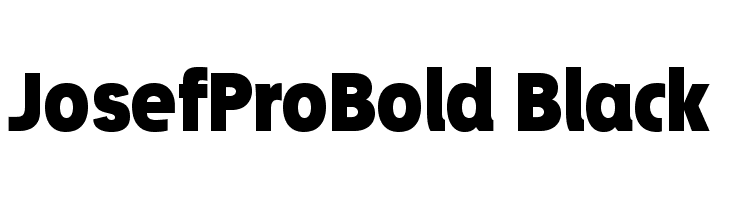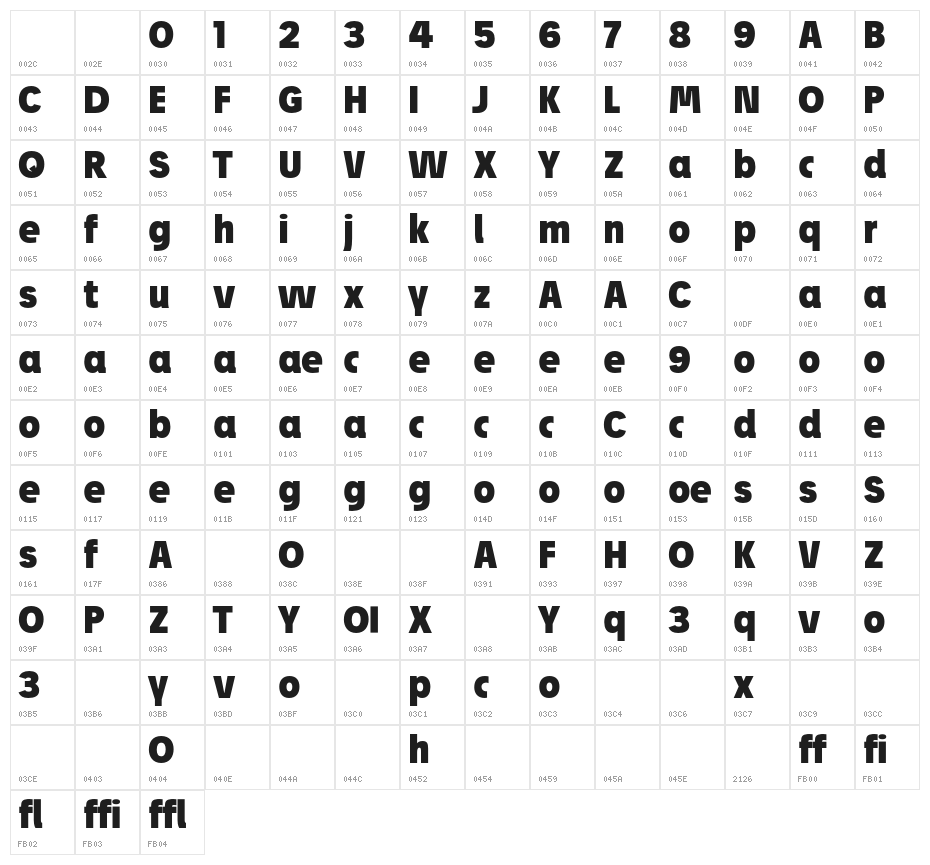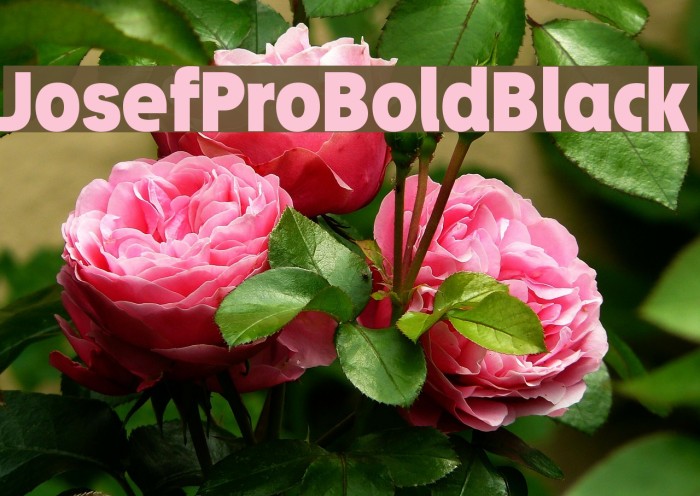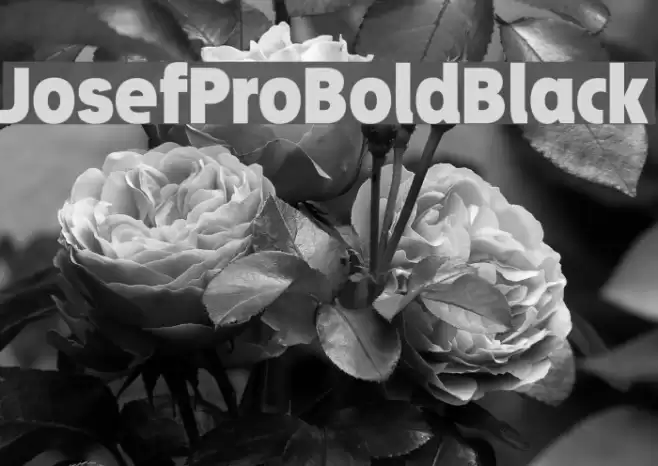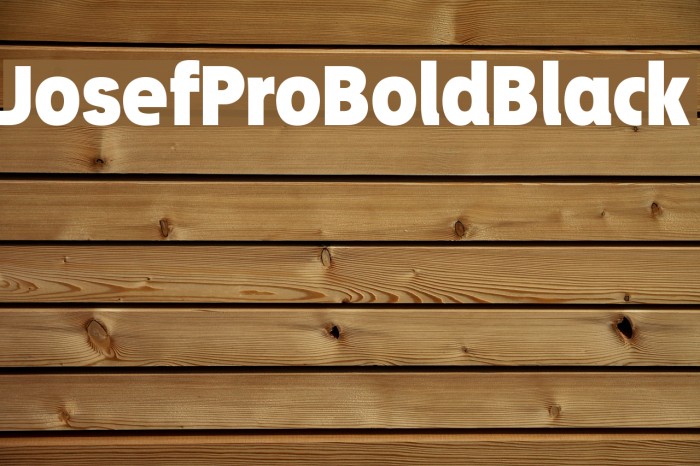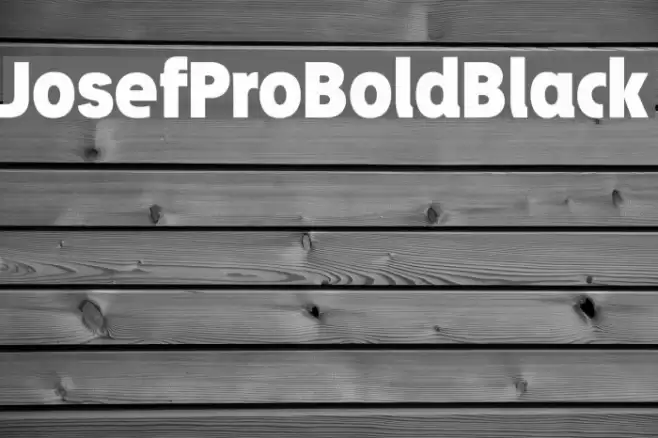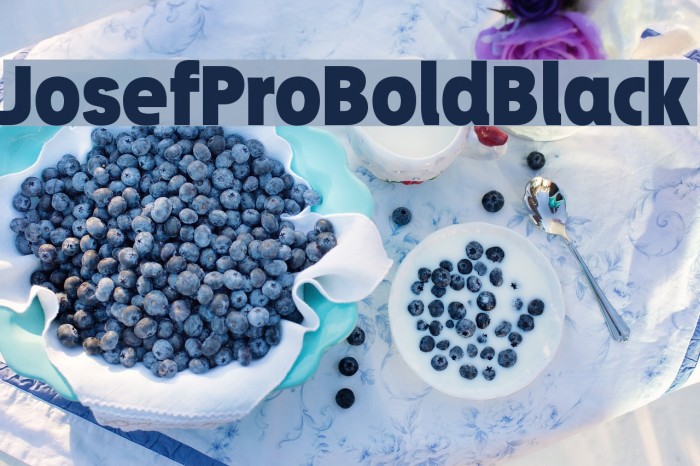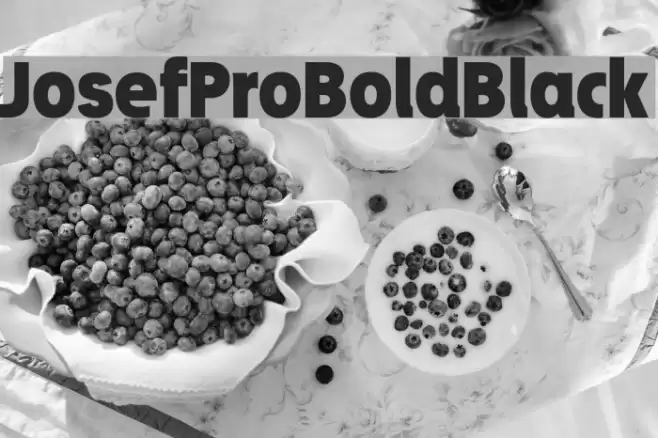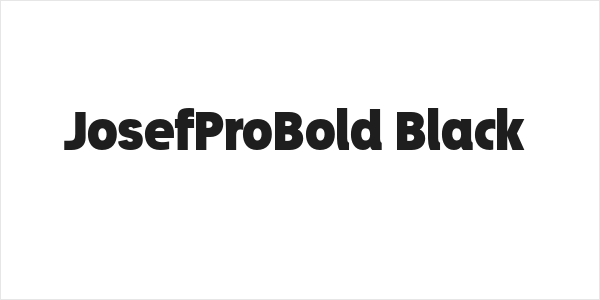
JosefProBold-Black Font
JosefProBold-Black Description
This font features a bold and robust design, characterized by thick, uniform strokes that convey strength and modernity. The uppercase and lowercase letters are well-proportioned, with a consistent weight that ensures readability across various sizes. The numerals are equally bold, maintaining the overall aesthetic of the typeface. The special characters are designed to match the boldness of the letters and numbers, providing a cohesive look. This font is ideal for making a strong visual impact, suitable for headlines and branding where a commanding presence is required.
Fonts by Ingo Zimmermann - www.ingofonts.com
| Proposed Projects | Ideal for branding, headlines, posters, and any design requiring a bold statement. |